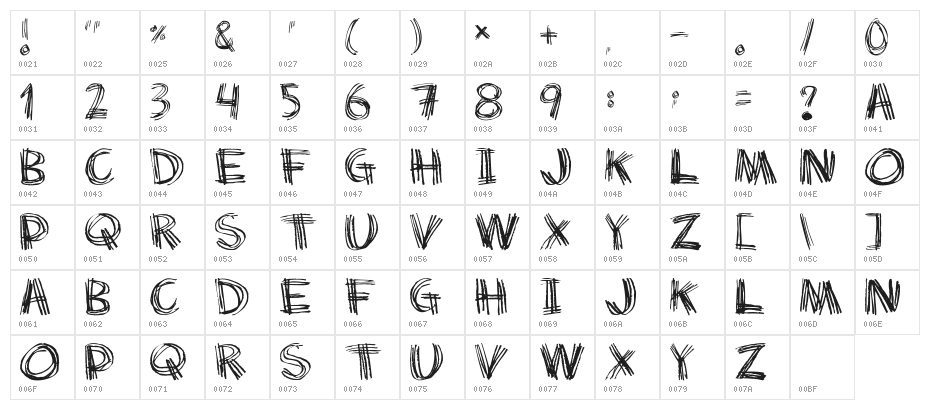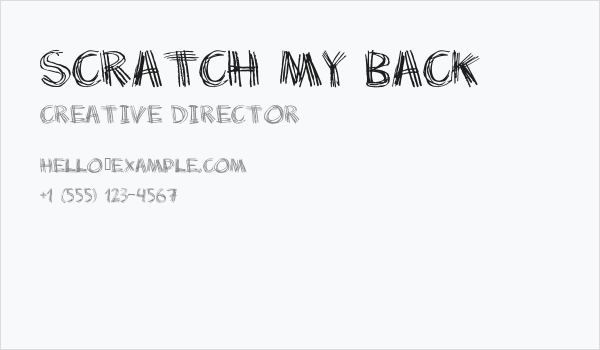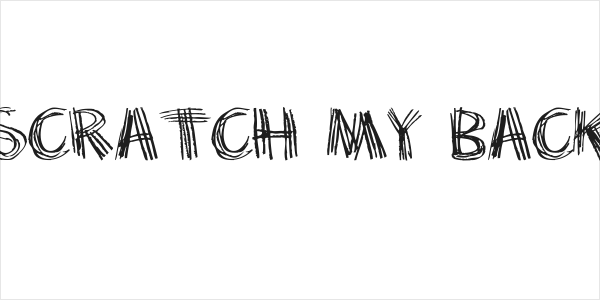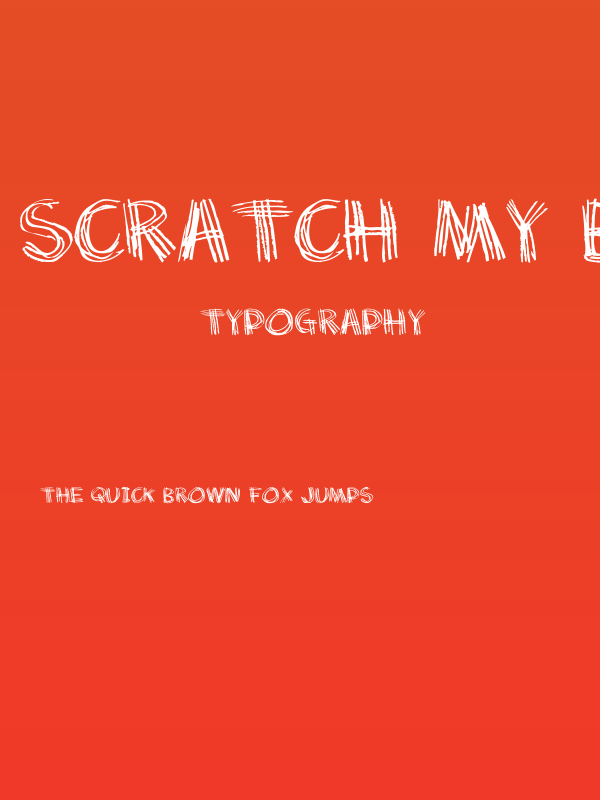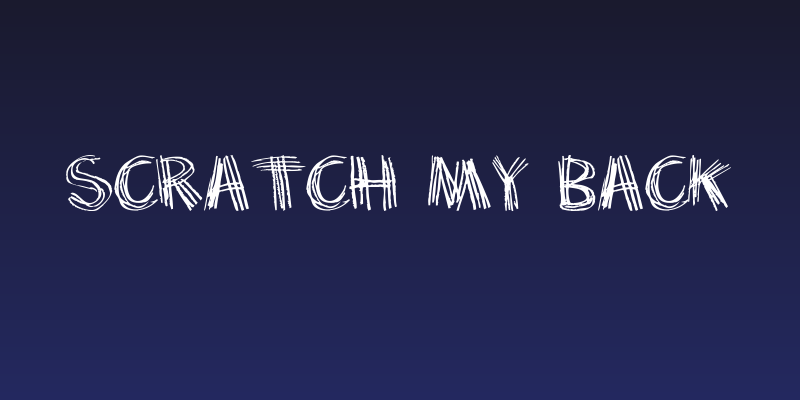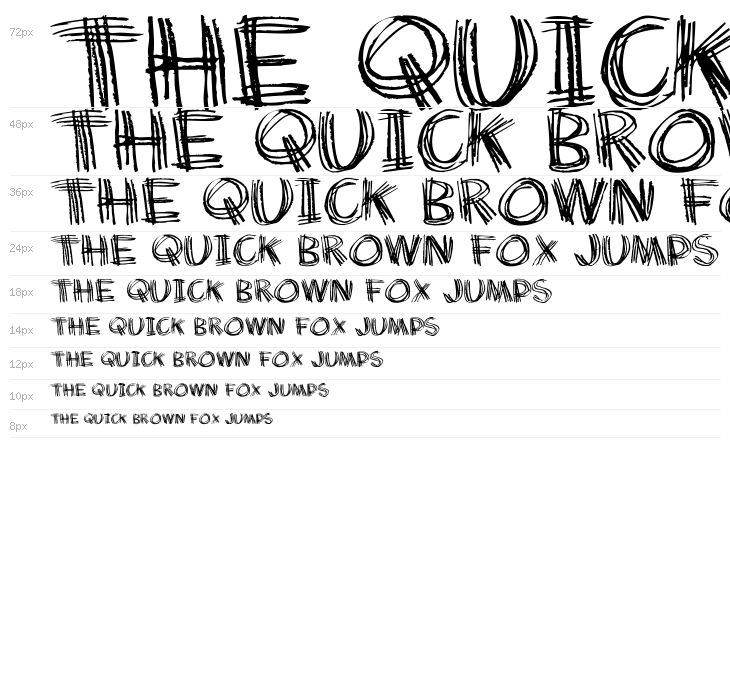
Scratch my back Font
Scratch my back Description
This font features a unique, hand-drawn style with a scratchy, textured appearance. Each character is composed of multiple overlapping strokes, giving it a dynamic and energetic feel. The irregularity in the lines adds a sense of movement and spontaneity, making it stand out as a bold and artistic choice. The uppercase and lowercase letters maintain a consistent style, while the numbers and special characters follow the same sketch-like aesthetic. This font is perfect for projects that require a creative and informal touch, such as posters, artistic designs, and playful branding.
| Proposed Projects | Ideal for posters, artistic designs, playful branding, and creative projects. |